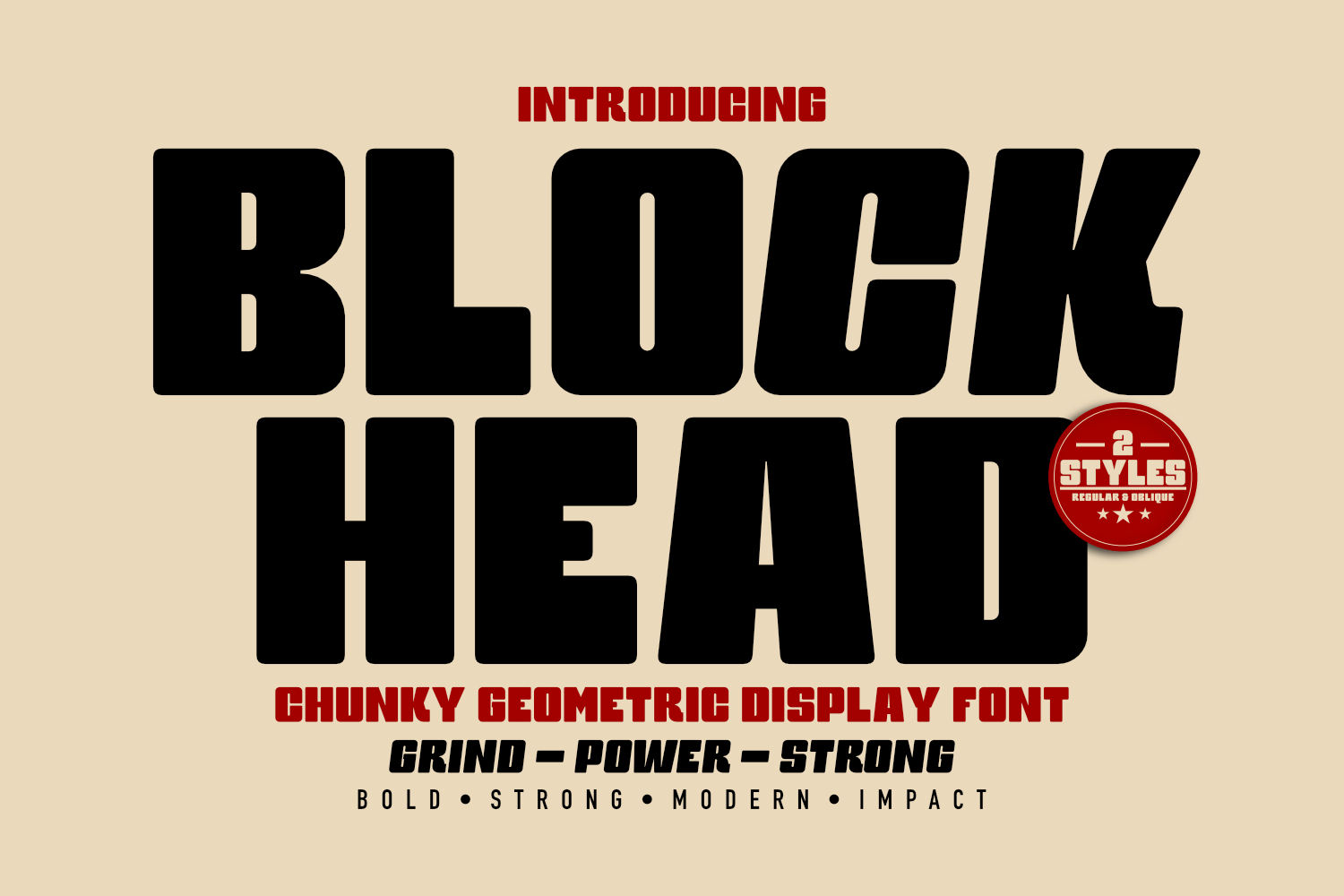
Block Head Chunky Display Font
Block Head – Chunky Geometric Display Font
Block Head is a bold, chunky geometric display font designed to deliver maximum visual impact. With its strong condensed forms, precise geometric construction, and powerful presence, this typeface is built for headlines, logos, and designs that demand attention.
Available in two complementary styles — Regular and Oblique — Block Head offers both stability and dynamism. The Regular style provides a solid, authoritative foundation, while the Oblique version adds energy and movement, allowing designers to create contrast and hierarchy within a single word or layout.
Crafted with a modern yet timeless approach, Block Head balances heavy proportions with clean geometric precision. The result is a typeface that feels strong, contemporary, and highly versatile — perfect for projects that require a sense of power, confidence, and modernity.
deal for:
- Logo design and brand identity
- Sports and athletic branding
- Streetwear and fashion campaigns
- Gaming and esports visuals
- Posters, packaging, and large-scale headlines
- Event promotions and high-impact marketing materials
Whether used in solid Regular form or dynamic Oblique style, Block Head brings a clear sense of strength and modern attitude to every design. Its condensed structure and bold character make it especially effective in tight spaces while maintaining excellent legibility at large sizes.
Key Features:
- Chunky geometric construction
- Strong condensed proportions
- Two styles: Regular & Oblique
- High-impact display performance
- Modern, versatile, and powerful aesthetic
Block Head is more than just a display font — it is a typographic tool designed for designers who want their work to stand out with confidence and force.